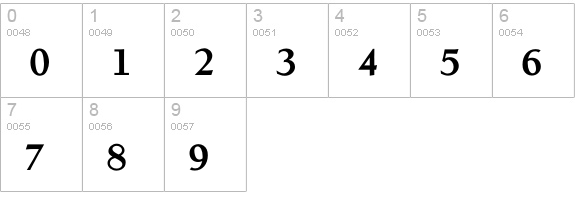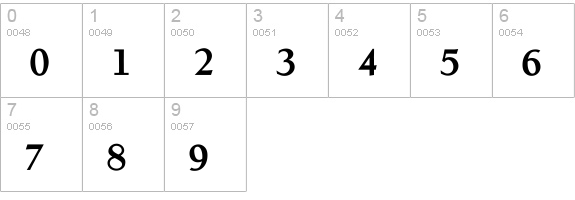
AlbertanBoldLZ Font Details
AlbertanBoldLZ is a bold and striking font that exudes confidence and modernity. With its clean lines and strong presence, this font is perfect for making a bold statement in any design project. Whether you are creating a poster, logo, or website, AlbertanBoldLZ will help your text stand out and capture attention. The best part about AlbertanBoldLZ is that it is completely free to download at FontsMarket.com. This means that you can easily access this powerful font and use it in your projects without any cost. Don't miss out on the opportunity to elevate your designs with the impactful style of AlbertanBoldLZ – download it today and let your creativity shine!